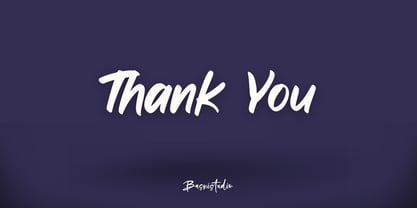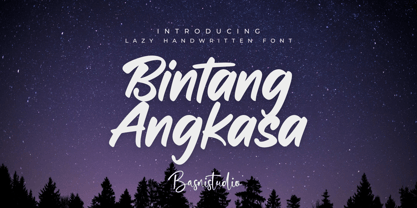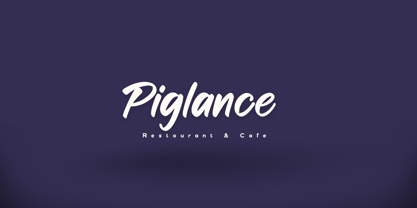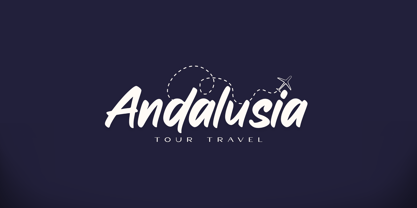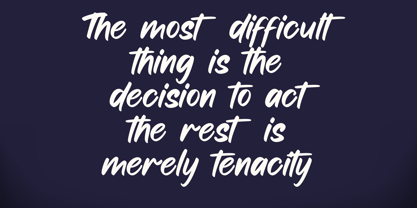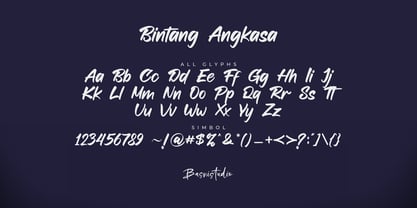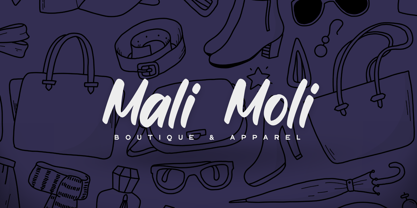
Bintang Angkasa
by Basnistudio
The Bintang Angkasa Font Family was designed by Bery Arisandi and published by Basnistudio. Bintang Angkasa contains 1 styles.
Introducing Bintang Angkasa Lazy Handwritten Font
Make your message unforgettable.
Bintang Angkasa isn’t just a font — it’s attitude in every curve, confidence in every letter.
🖋️ Designed for impact
🎨 Perfect for posters, headlines, branding & more
💥 Sharp, stylish, and unapologetically bold
Your words deserve to be seen.
Say it loud. Say it with Bintang Angkasa.
Designers: Bery Arisandi
Publisher: Basnistudio
Foundry: Basnistudio